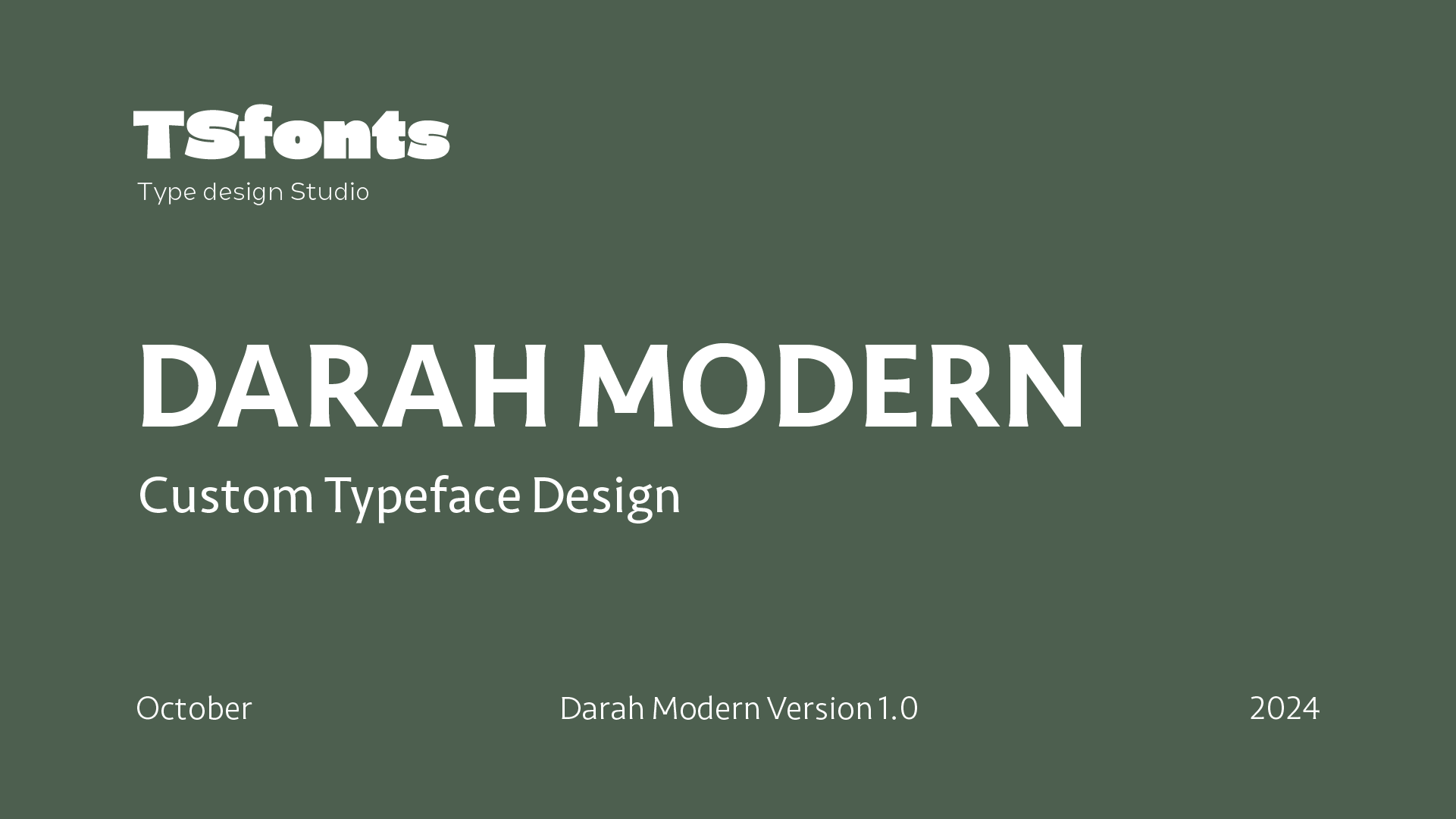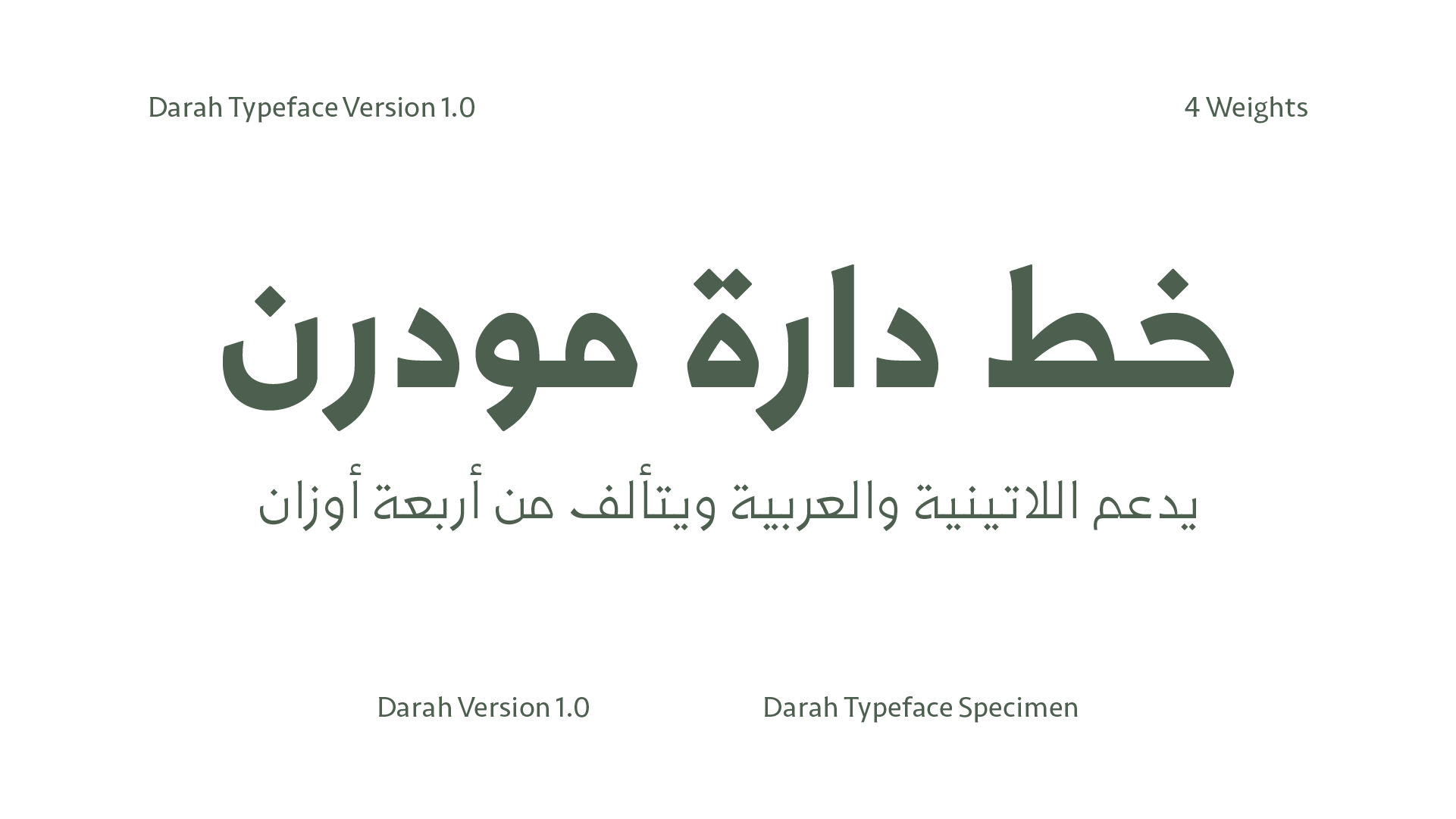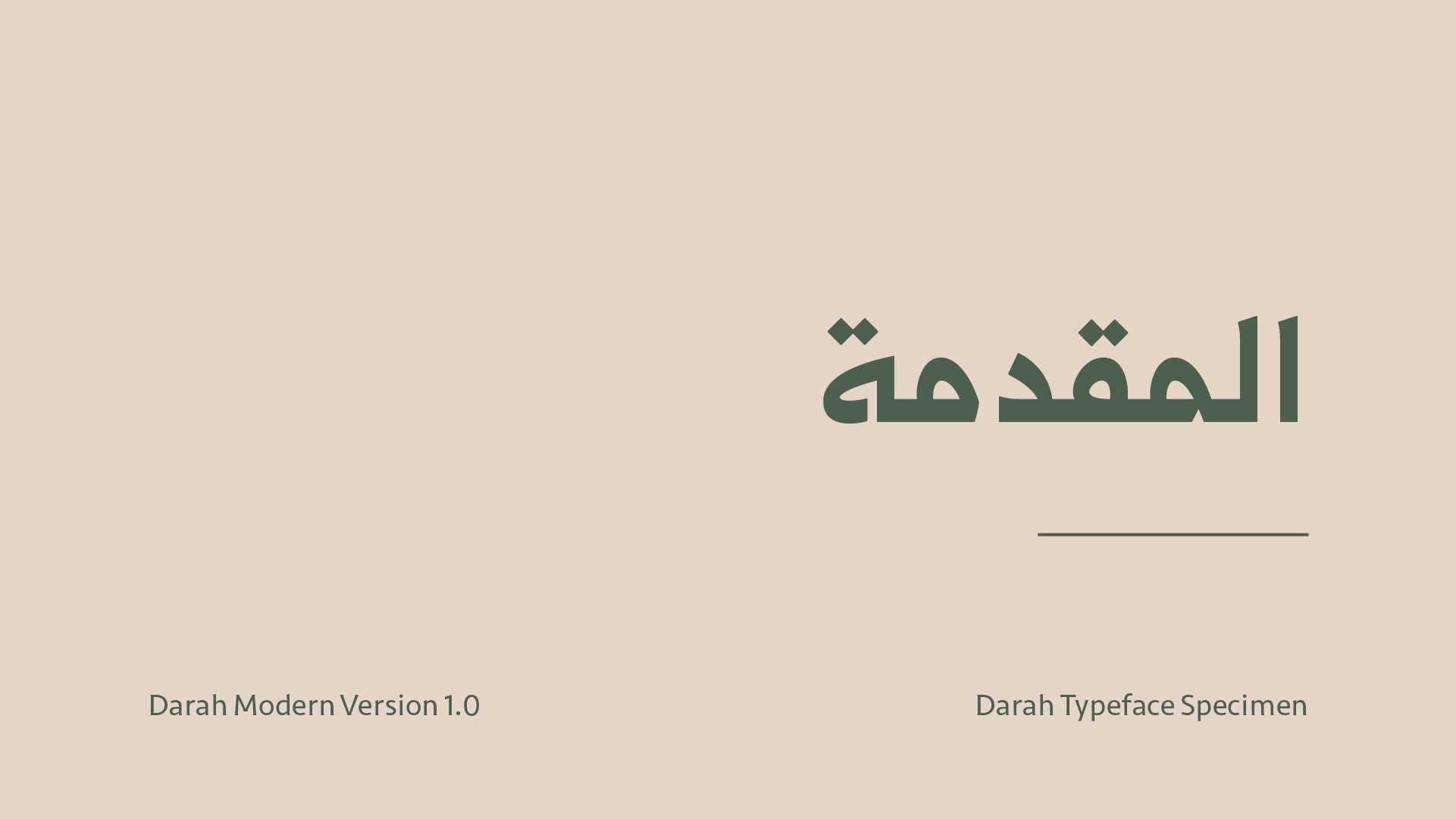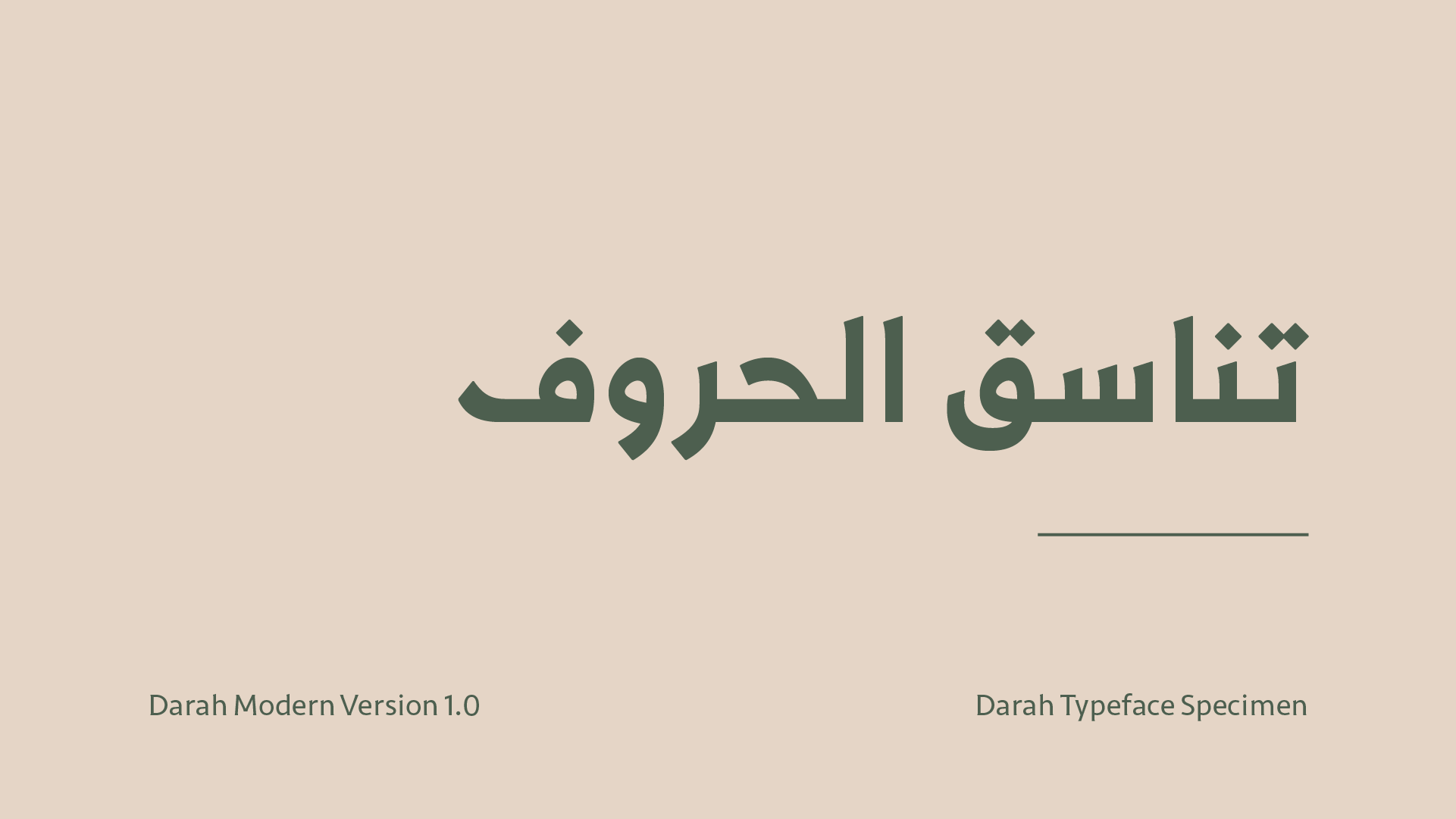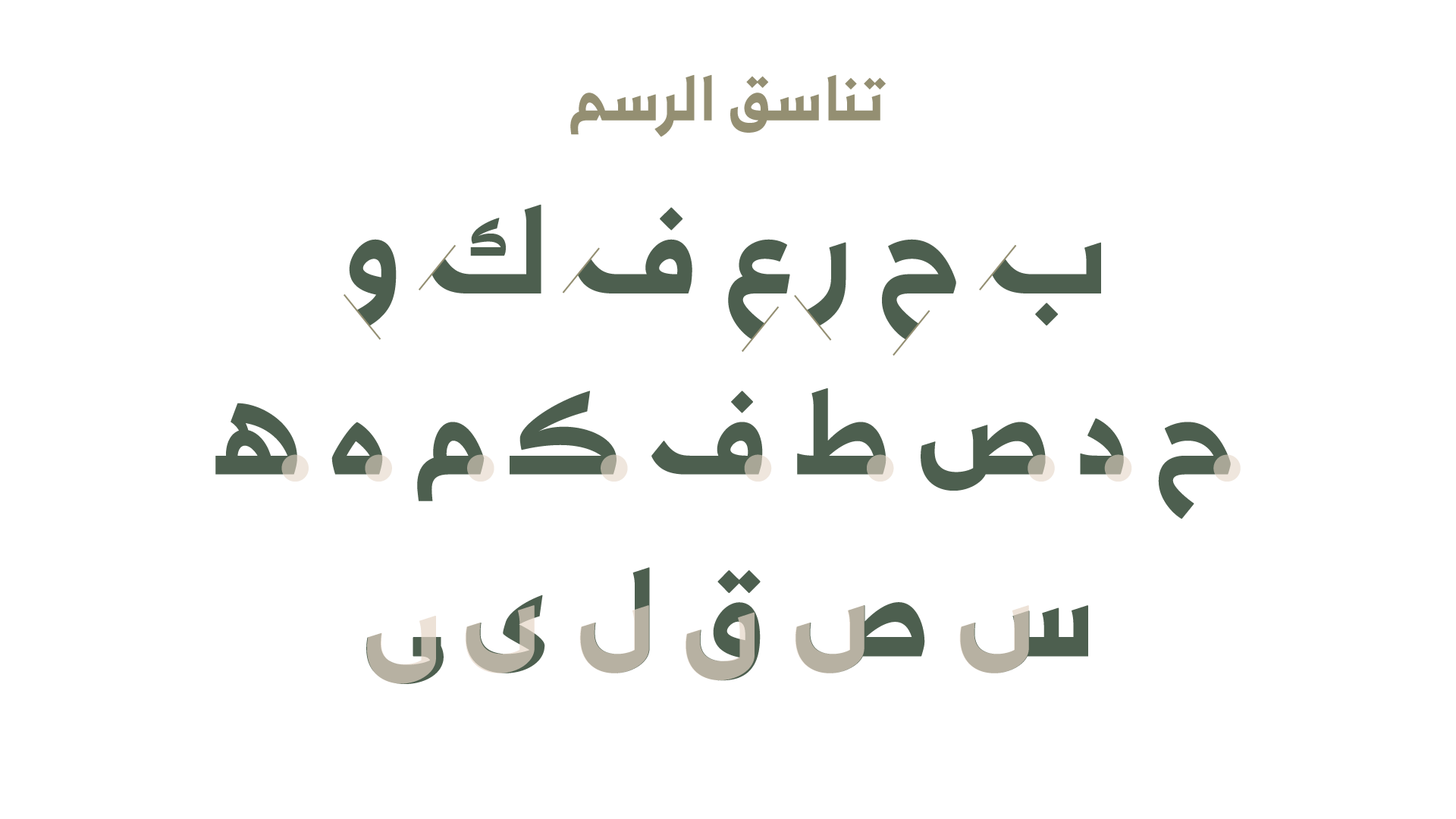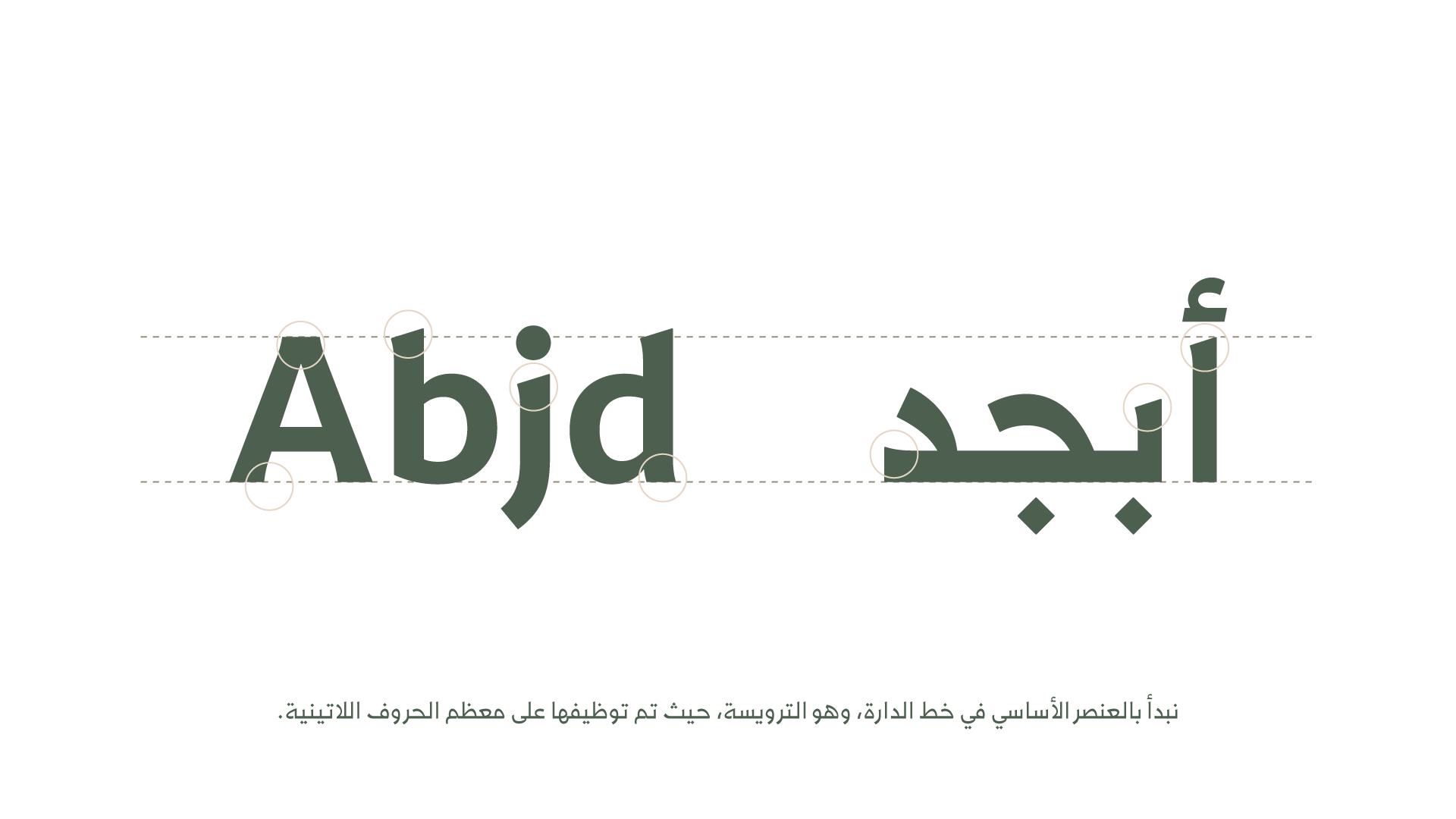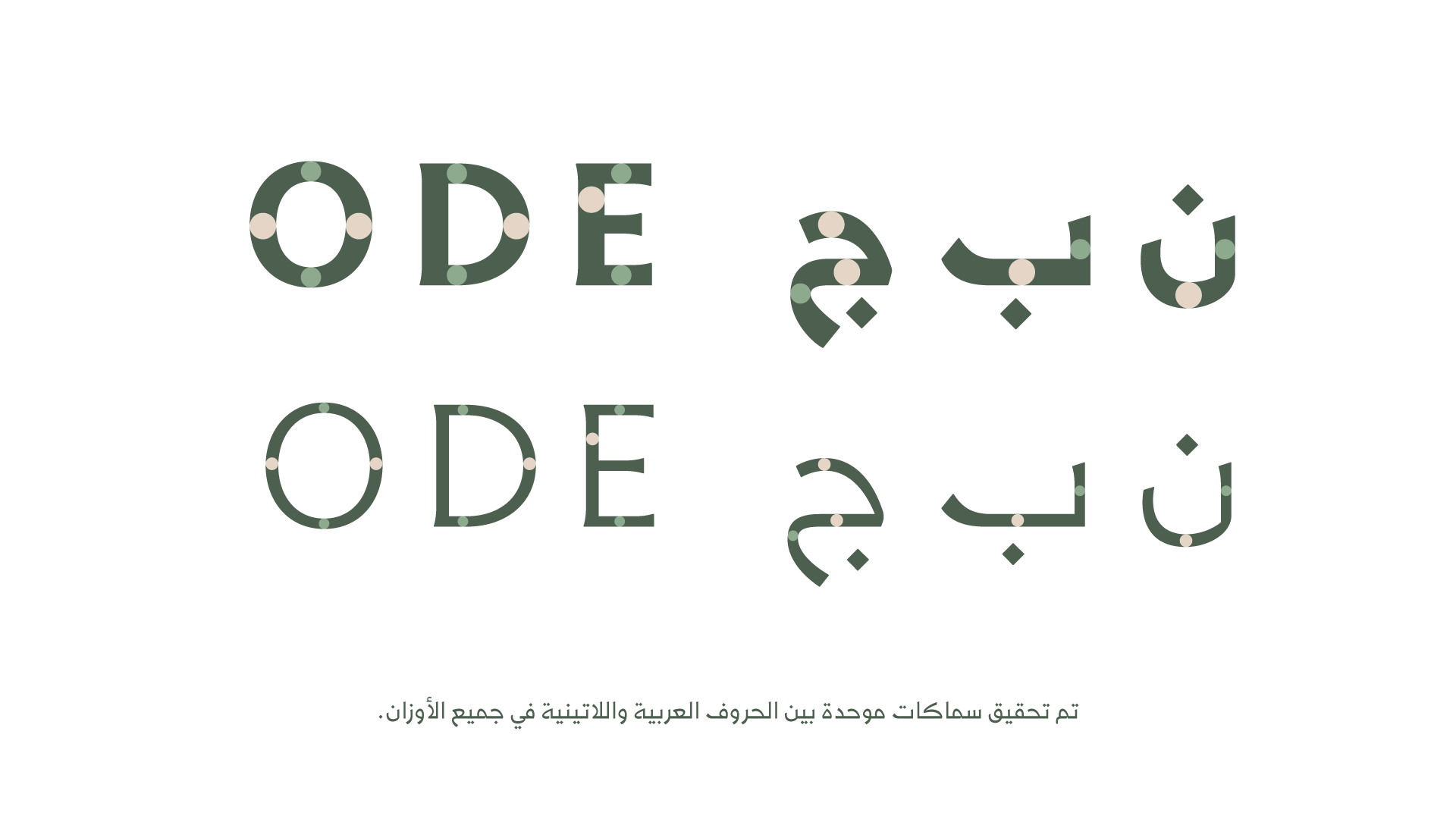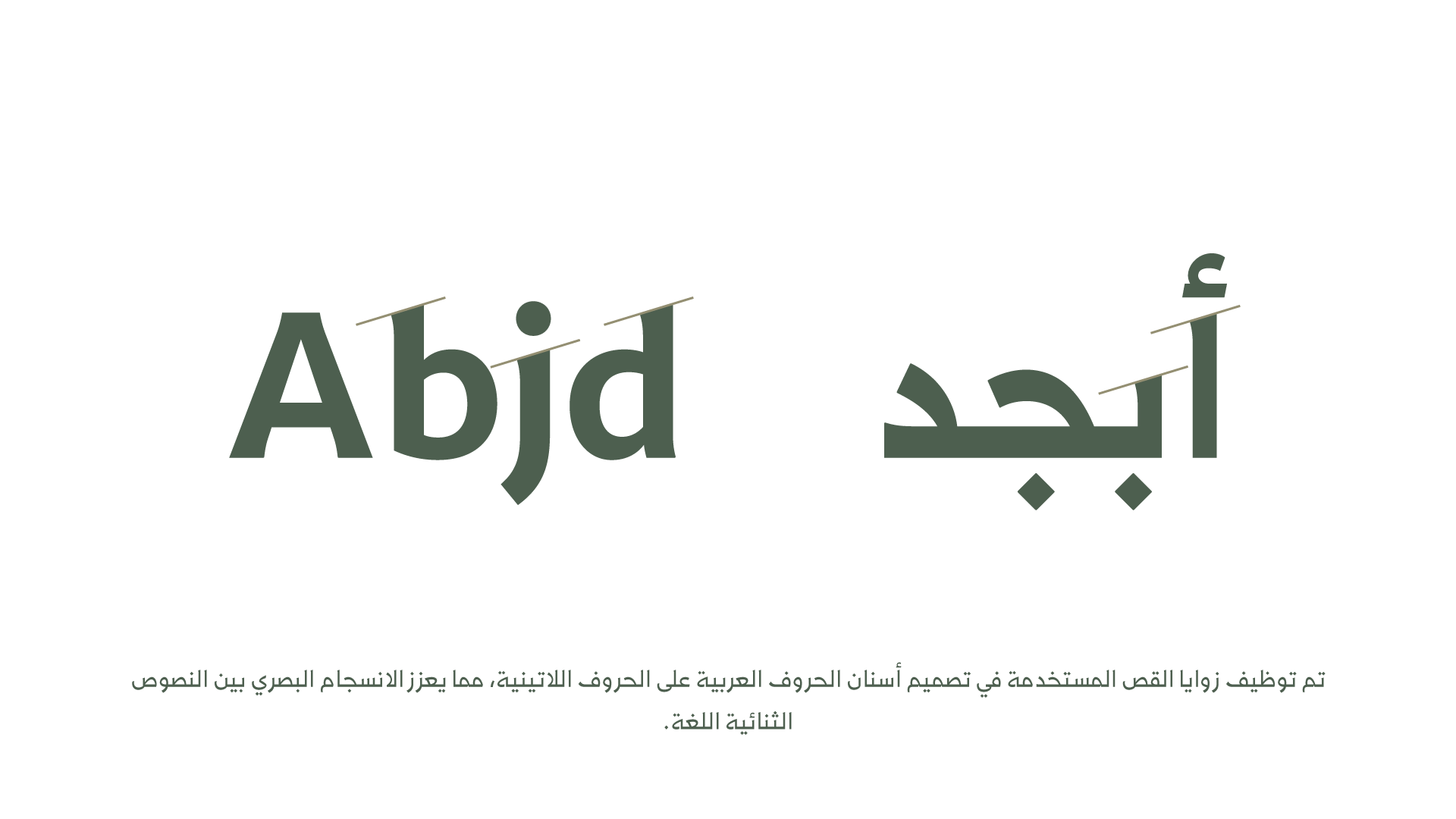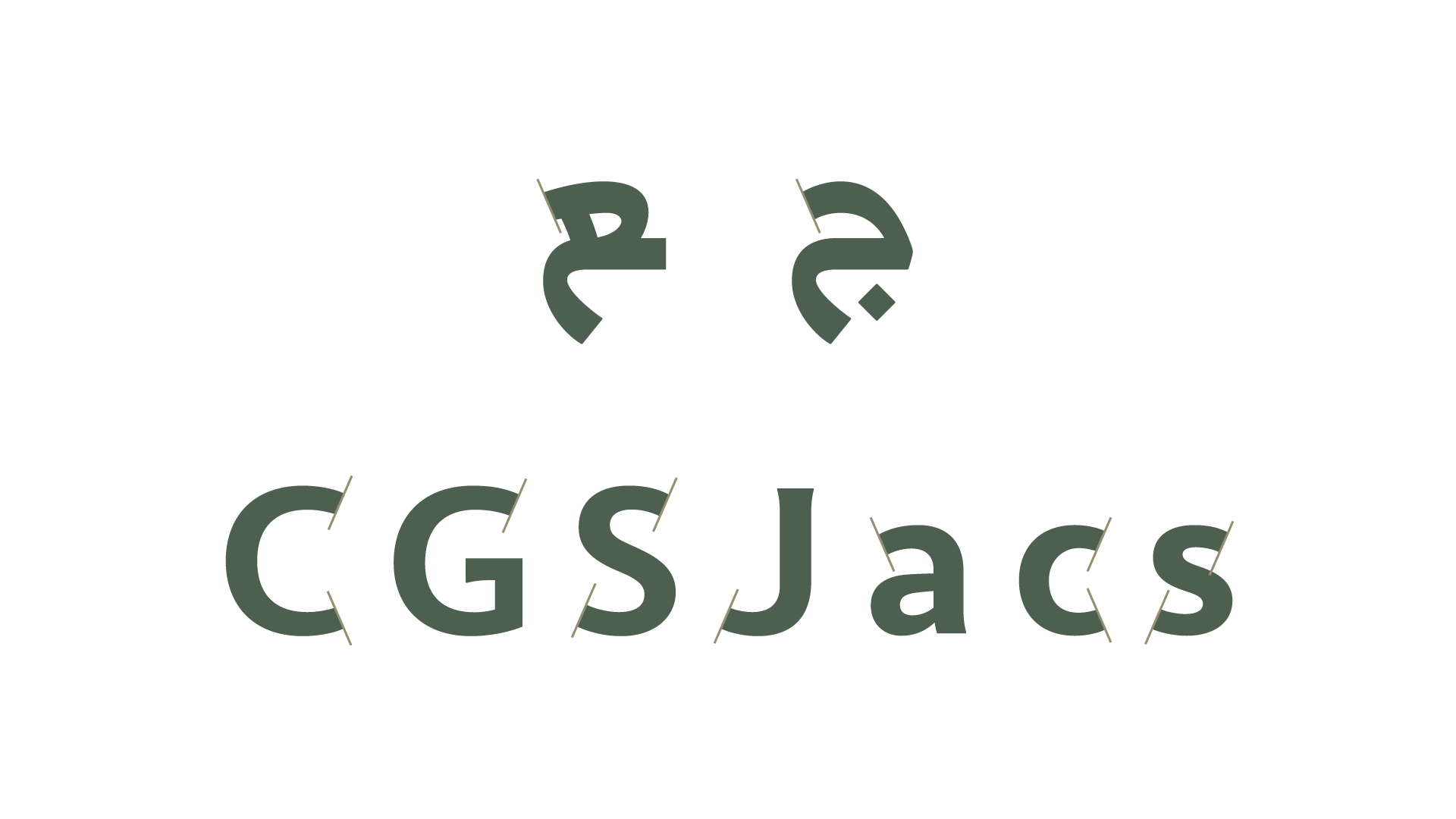
About Darah Modern Typeface
Ancient Hijazi scripts inspire the King Abdulaziz Darah Typeface. It balances solid and fluidity, making it one of the most distinctive Arabic typefaces, originally designed by Mr. Kameel Hawa. The letterforms reflect the spirit and vision of the Darah. However, the previous version of the typeface contained several issues, both in its drawing and technical engineering.
The original version included three weights and supported Arabic only. Based on this, we restructured the entire font file and redrew the typeface from scratch. A light weight was added, and the font family was reorganized while resolving all engineering issues. We also enhanced the Arabic letterforms and corrected all prior design flaws.
Additionally, we designed basic Latin characters in four weights that align visually with their Arabic counterparts, along with Arabic numerals and punctuation marks.
خط دارة الملك عبد العزيز مستوحى من الخطوط الحجازية القديمة، يجمع بين الصلابة والليونة ويعتبر من الخطوط العربية المميزة من تصميم الأستاذ كميل حوا.
تعكس أشكال حروفه روح ورؤية الدارة. كان الخط في نسخته القديمة يحتوي على عدة مشاكل سواء في الرسم أو البرمجة.
النسخة القديمة كانت تتكون من ثلاثة أوزان وتدعم اللغة العربية فقط. بناءً على ما سبق، قمنا بإعادة ضبط الملف وإعادة رسم الخط بالكامل من الصفر، مع إضافة وزن خفيف وإعادة تنظيم عائلة الخط مع إصلاح مشاكل البرمجة. كما عملنا على تطوير وتحسين الحروف العربية وتصحيح جميع المشاكل السابقة.
تم تصميم الحروف اللاتينية الأساسية إلى الخط بأربعة أوزان متناسقة مع تصميم نظيراتها العربية، إلى جانب الأرقام العربية وعلامات الترقيم.